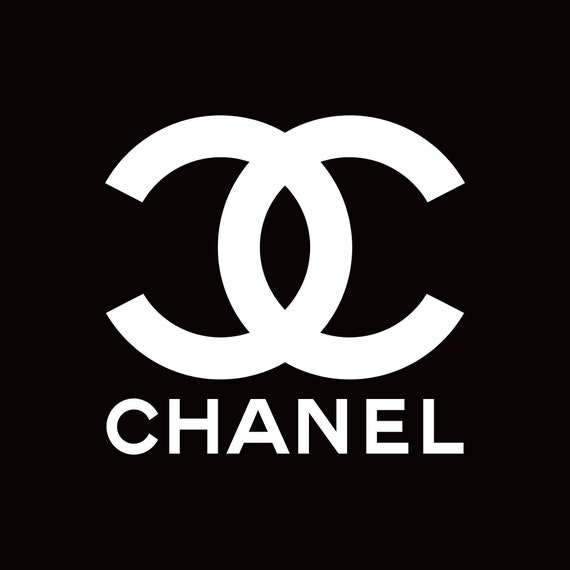
Chanel Font Logo
Chanel Font Logo - The font used by chanel is called “chanel no 5.” it was created in 1926 by the famous french typographer, georges.